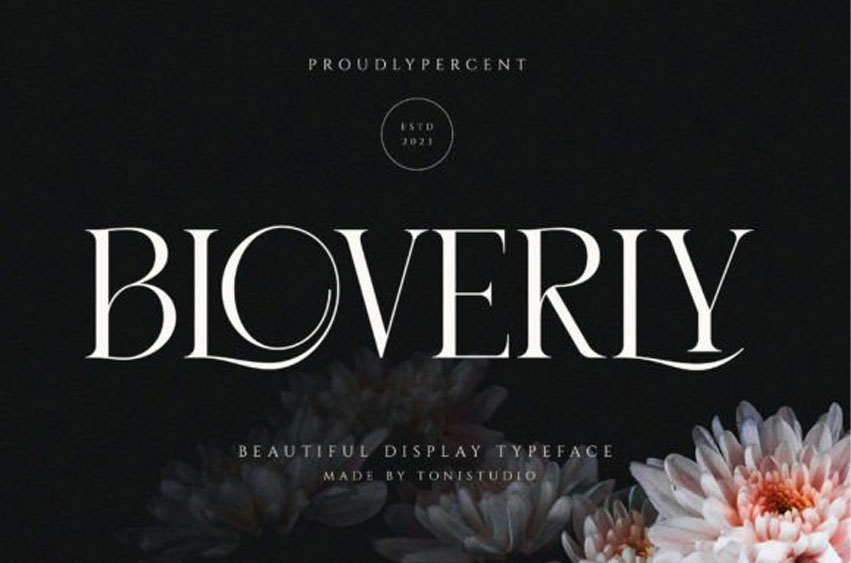
Bloverly Font
Bloverly Font is a beautiful and classy serif font that evokes sophistication and refinement. With its graceful curves and timeless style, this font is perfect for conveying a sense of luxury and elegance.
Whether it’s for formal invitations, high-end branding, or editorial design, “Bloverly” will elevate any project to the next level. Keep in mind that the font is PUA encoded, meaning that you can access all delightful glyphs and swashes effortlessly.